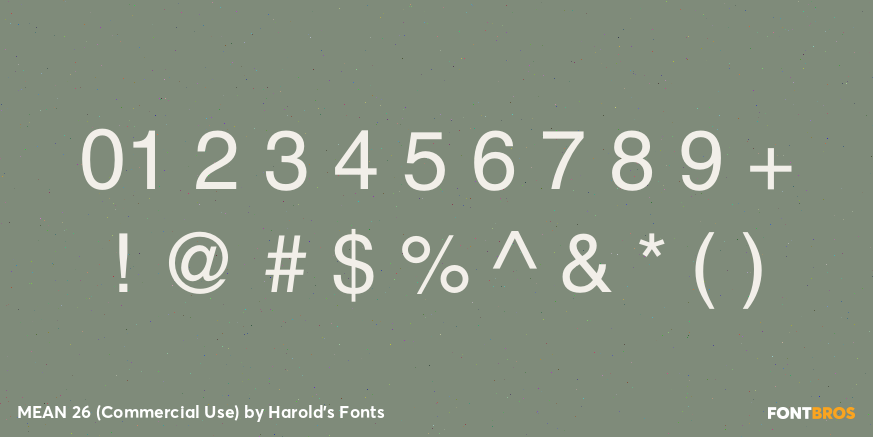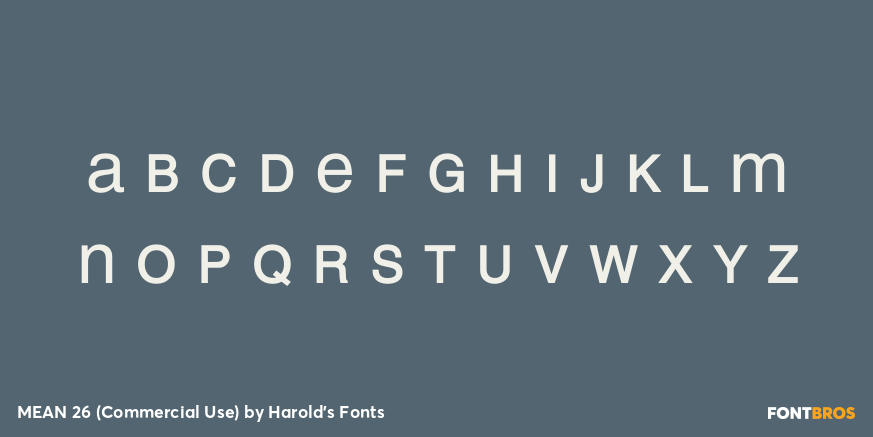
MEAN 26 (Commercial Use)
Buy NowMEAN 26 was inspired by Alphabet 26, Bradbury Thompson’s famous 1950 proposal for redesigning the alphabet. The idea was that there would be just one case, favoring the uppercase forms except for a, e, m and n, totaling 26. There would be a large and small version of each to use as capitals.
Thompson used the distinctive Baskerville for his prototype, and Alphabet 26 owes it much of its beauty to that choice. For my fonts, I’ve retooled lookalikes of familiar text fonts, adjusting the weights in an attempt to balance the big and little letters. Avoid the obvious font choice and give your text an unusual feel, rather like large and small caps or Cyrillic!
My opinion: the Alphabet 26 approach to typesetting does create an unusual texture, but its failure to catch on may be due to the fact that it actually reduces legibility by eliminating the differences between letters. It is overreaching to propose that learning two shapes for each letter is burdensome. The quirky differences between normal lowercase letters, including ascenders and descenders, enable legibility, rather than hinder it. If you want to help reading, at least in English, work on simplifying spelling.